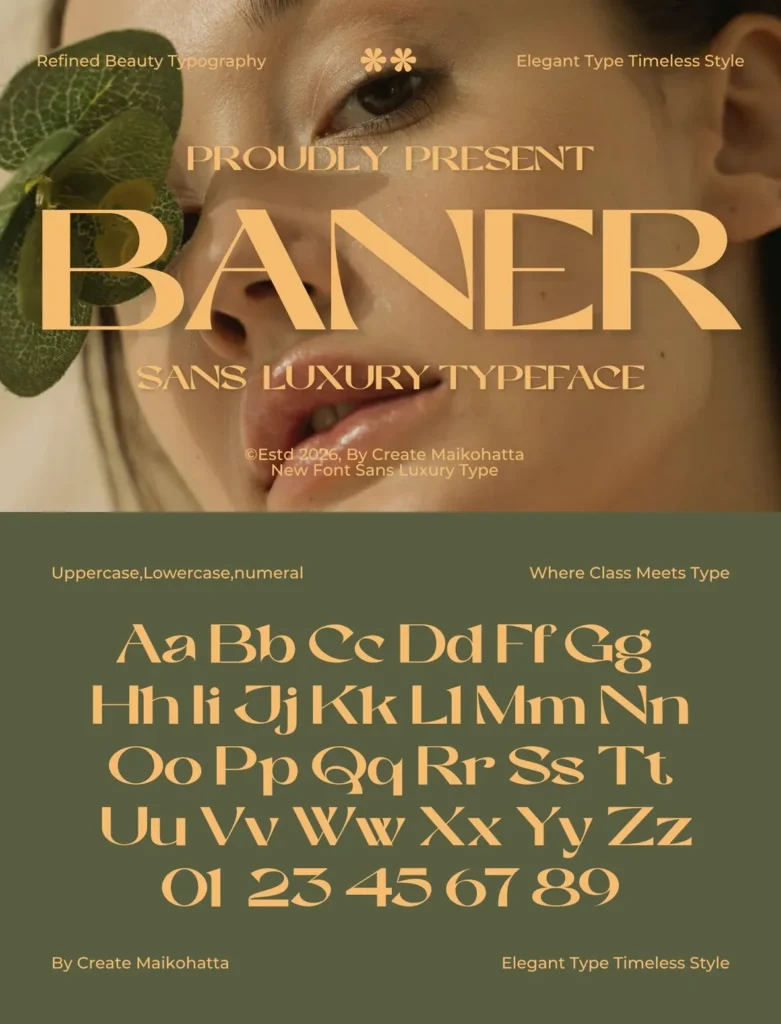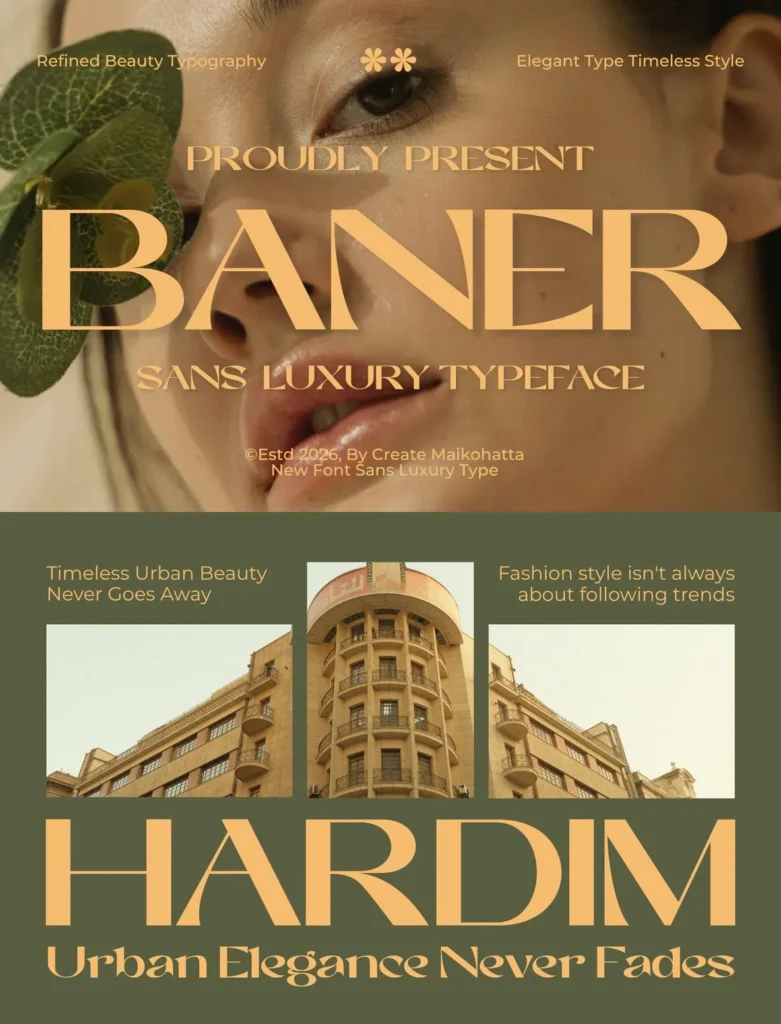
Baner — Luxury in Clean Lines
Baner — Sans Luxury Typeface is a refined, sophisticated sans serif designed for elegance, modernity, and timeless visual style. Its clean lines, graceful proportions, and luxurious aesthetics give creative projects a polished premium presence. Baner works especially well across branding, editorial design, and high-end design applications where clarity and distinction matter.
With a balanced mix of contemporary minimalism and classic luxury, Baner suits fashion brands, beauty products, cosmetics packaging, jewelry collections, wedding invitations, magazines, and upscale marketing materials. Its stylish letterforms create a strong visual presence while maintaining excellent readability, making the typeface suitable for both headlines and display typography. For luxury brand identity or elegant publication design, Baner adds sophistication and exclusivity to every project.